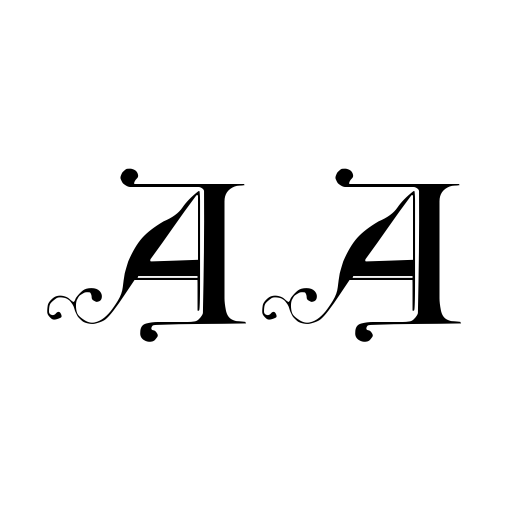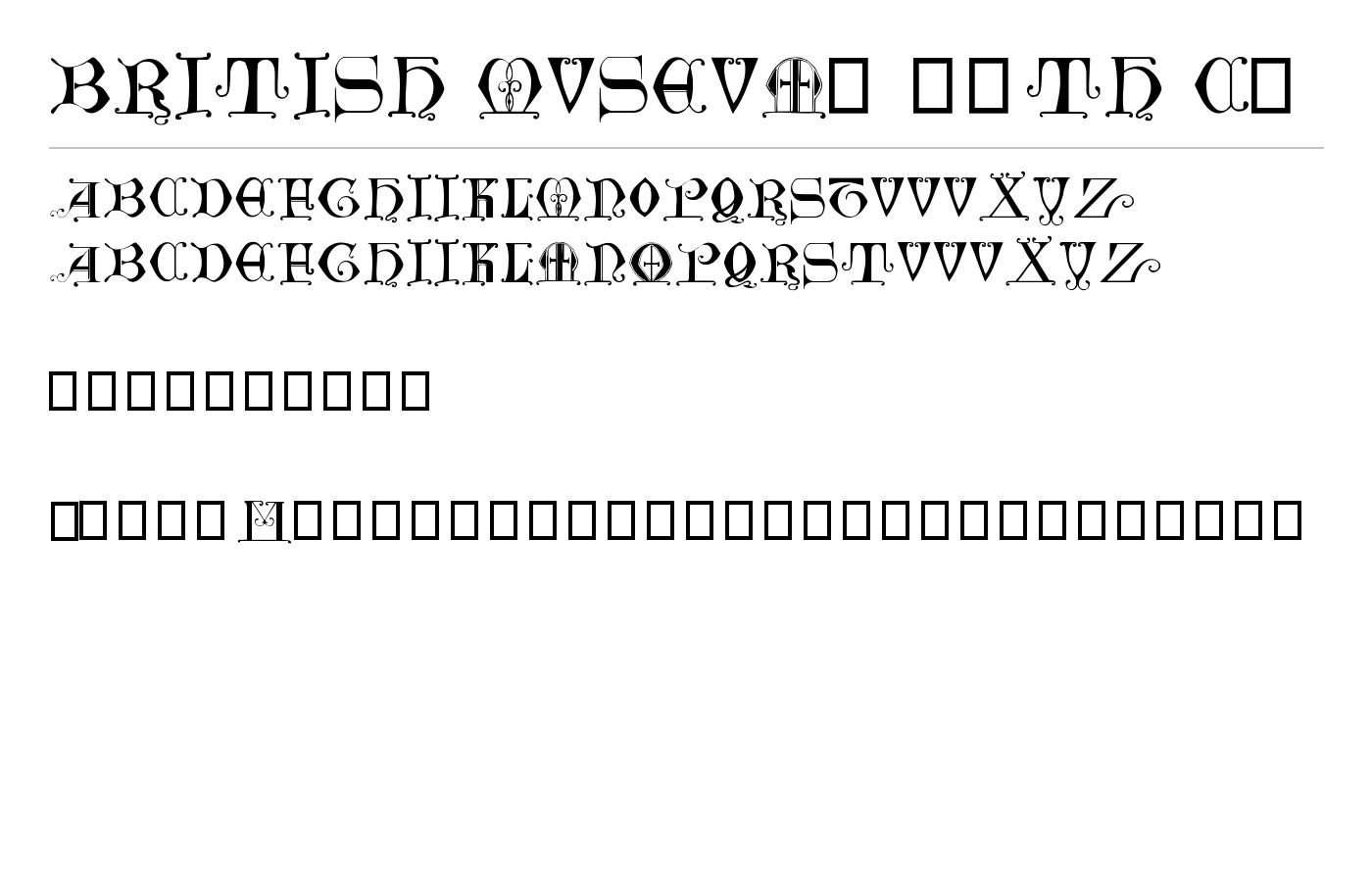
British Museum, 14th c. is an ornamental serif typeface inspired by medieval manuscript lettering, featuring delicate, bracketed serifs and intricate, decorative flourishes. Its stylized letterforms with medium contrast and a tall x-height evoke a historic yet artistic feel, making it ideal for heritage branding, vintage designs, and decorative headlines that require a touch of old-world elegance.
British Museum, 14th c. Font